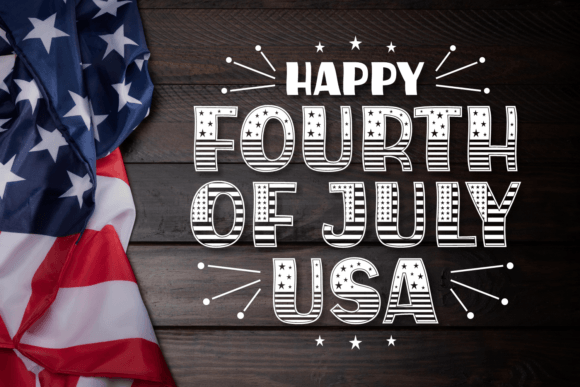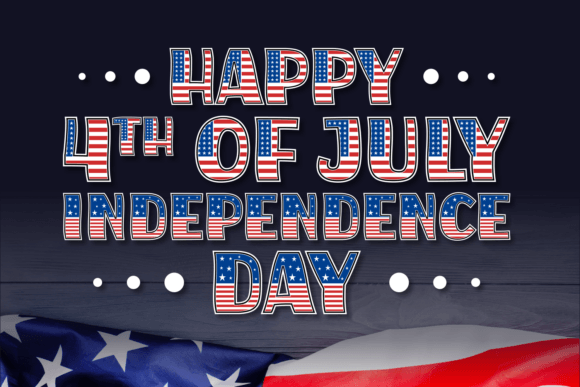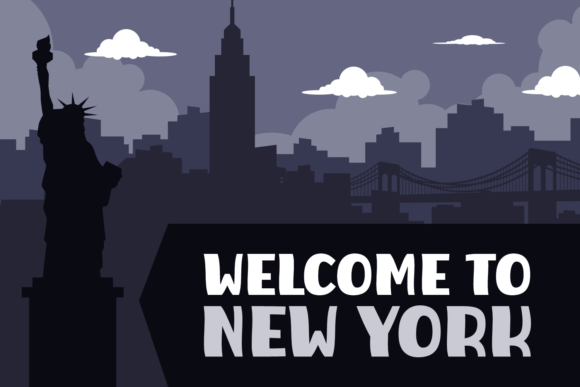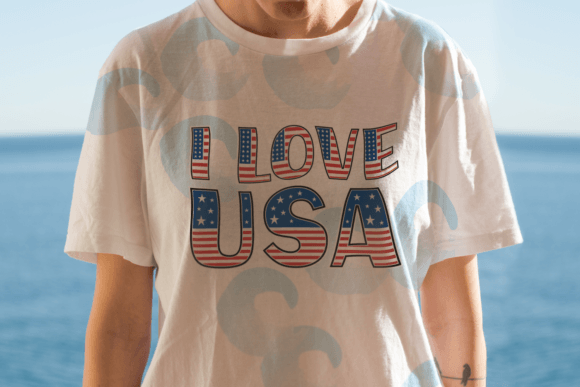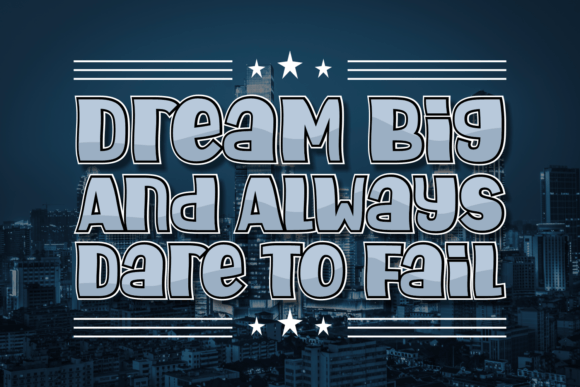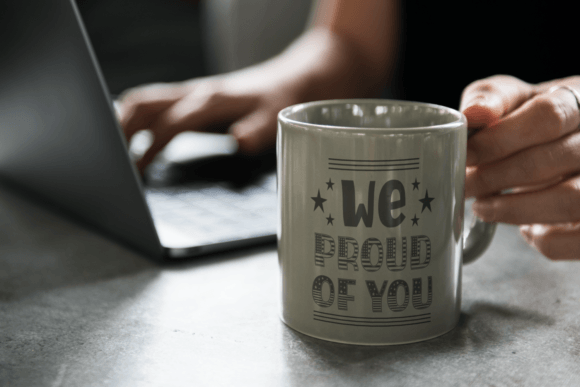
Introduction to Great Country Font
Great Country Font: A decorative typeface adorned with the stars and stripes of the American flag.
Perfect for patriotic designs and projects celebrating the USA .
Key Features of Great Country Font